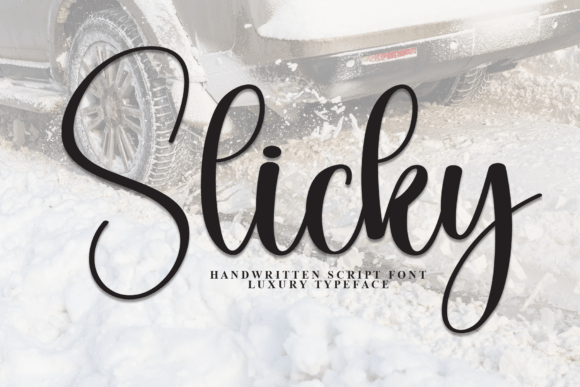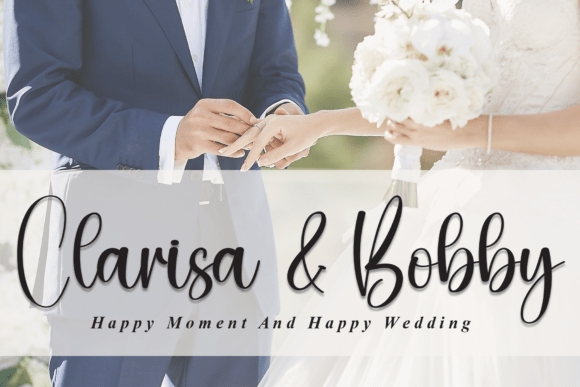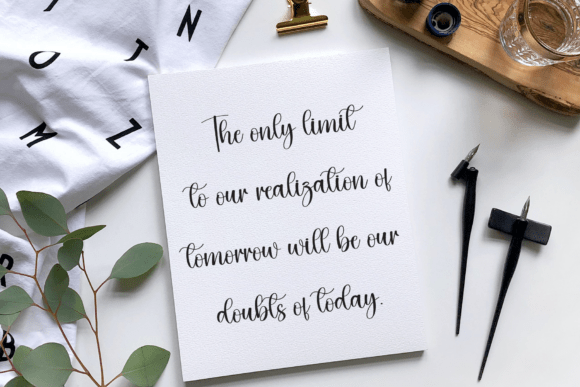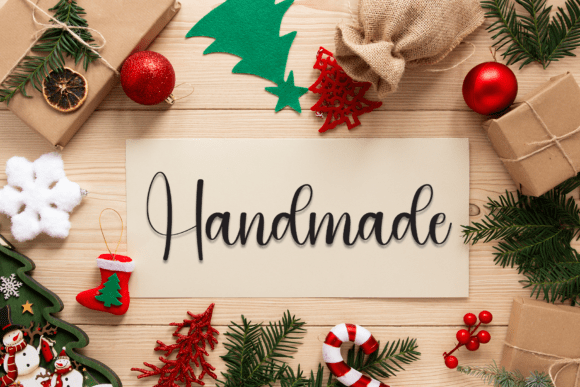
Slicky Font: A Stylish Handwritten Script for Branding & Social Media
About the Slicky Font
Get ready to be inspired by Slicky Font, a fresh and dynamic typeface for modern creators. This display handwritten font bursts with personality and charm, capturing the warmth of real handwriting with bold, eye-catching strokes. Designed to stand out while maintaining a natural flow, it’s perfect for logos, social media graphics, posters, and anything that calls for a personal, expressive touch. Whether you’re crafting a heartfelt quote or branding a creative product, this font brings authenticity and flair to your design.